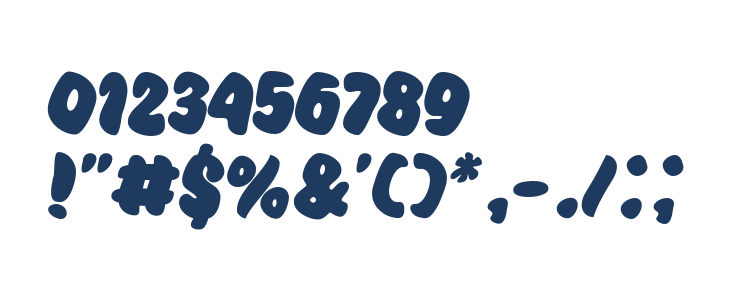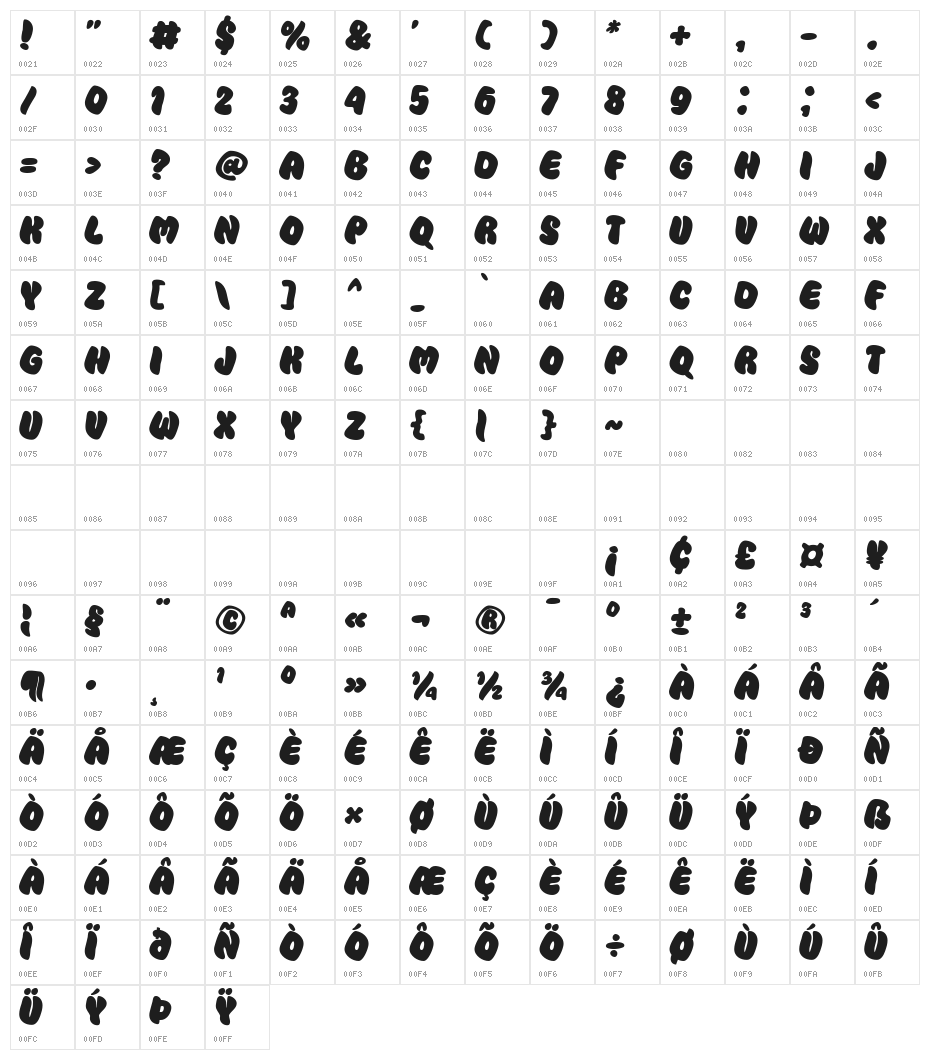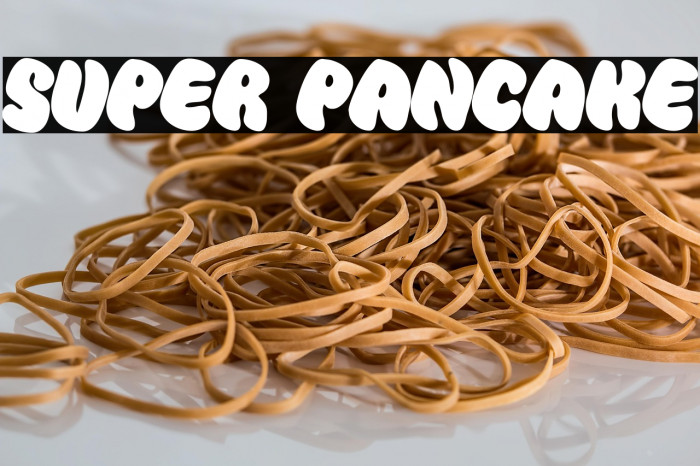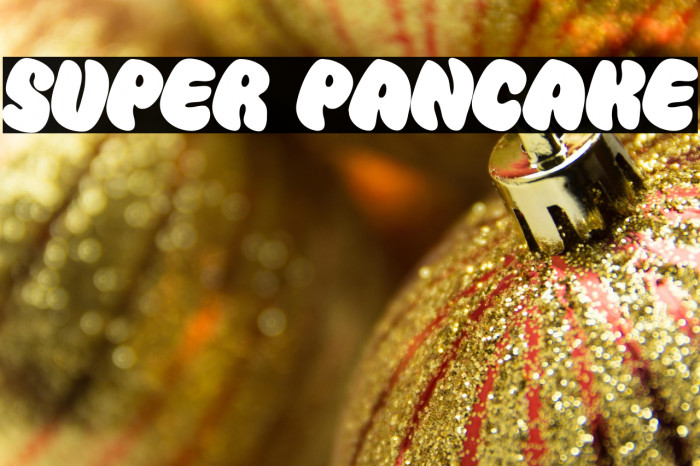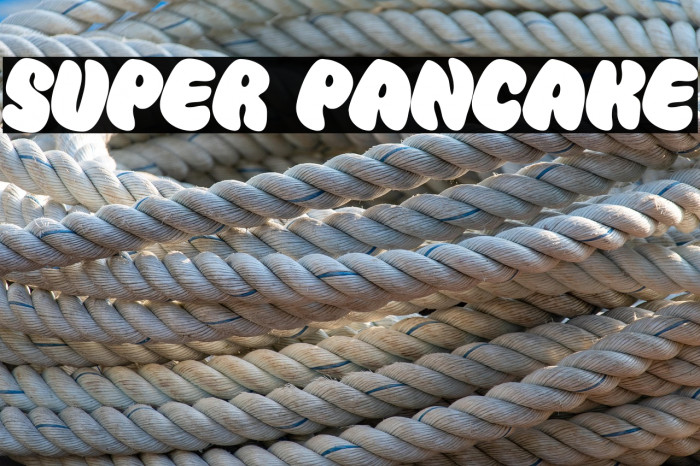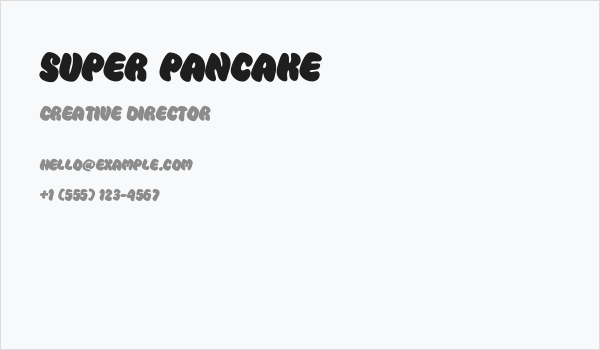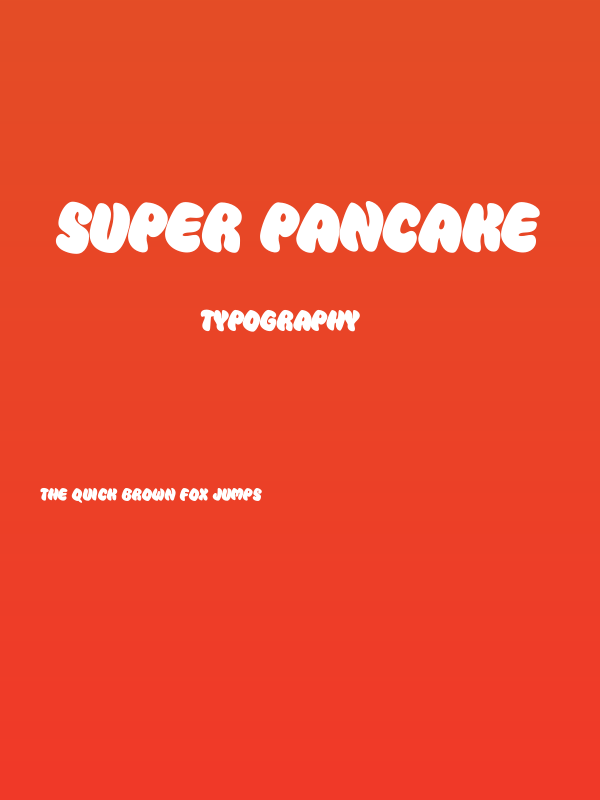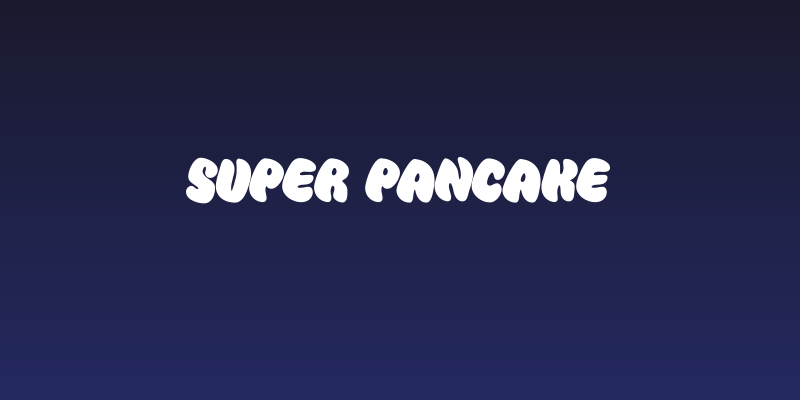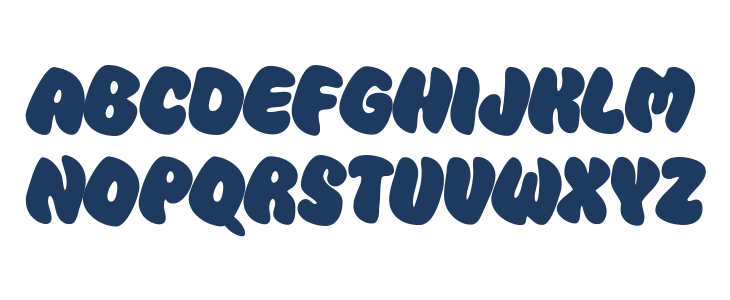
Super Pancake Font
Super Pancake Description
This playful and bold font features rounded, bubbly characters that convey a sense of fun and whimsy. The letters are thick and substantial, with a consistent stroke width that gives them a cohesive and unified appearance. The overall design is reminiscent of cartoon or comic styles, making it ideal for projects that require a lighthearted and approachable feel. The characters are well-spaced, ensuring readability while maintaining their distinctive style. The font includes a full set of uppercase and lowercase letters, numbers, and a variety of special characters, making it versatile for various design needs.
| Overall Style | Playful, Fun, Whimsical |
| Use Case | Headlines, Logos, Posters, Invitations |
| Proposed Projects | Ideal for children's books, playful branding, comic strips, party invitations, and any design needing a fun, approachable vibe. |